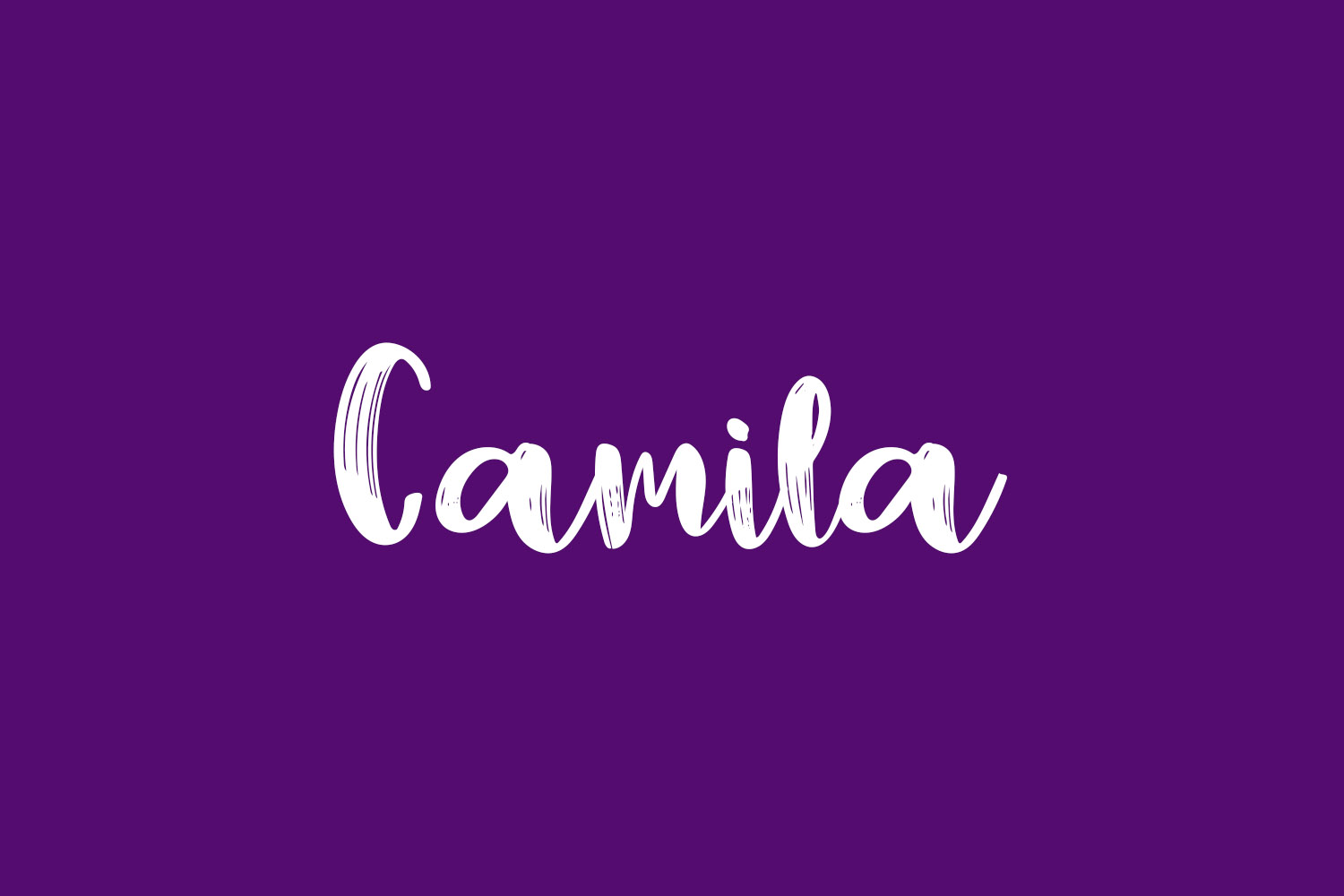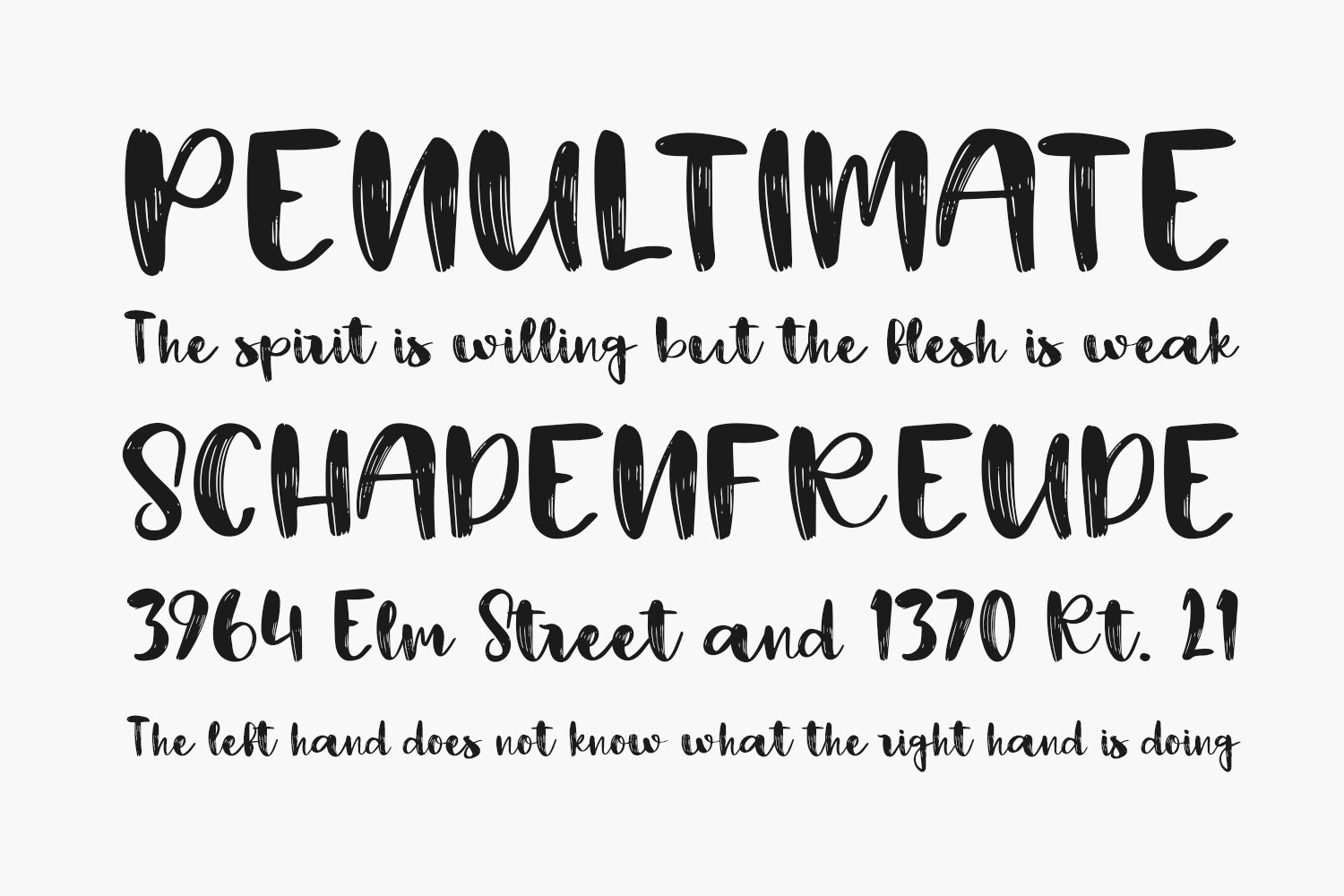
Camila Free Font is a fun and chunky display font, perfect for your next creative ideas! Featuring well-rounded letters that resemble brush strokes, this font will make your creation stand out and look original. Camila Free Font was designed by Creative Zone and is free for personal use only. Please purchase the full version for commercial use.